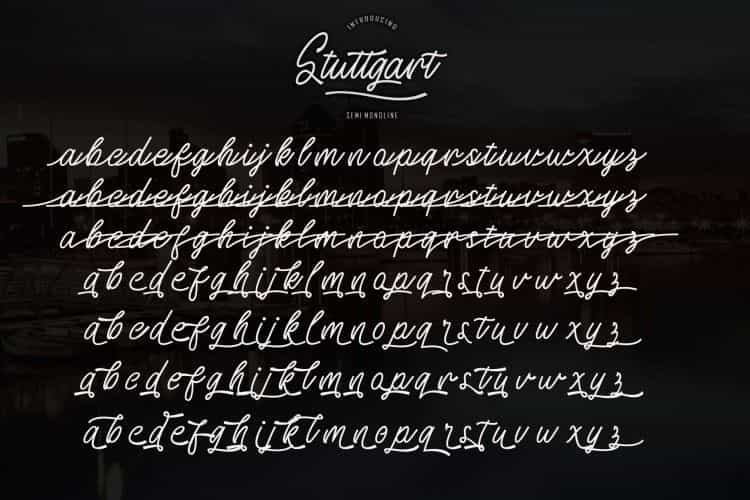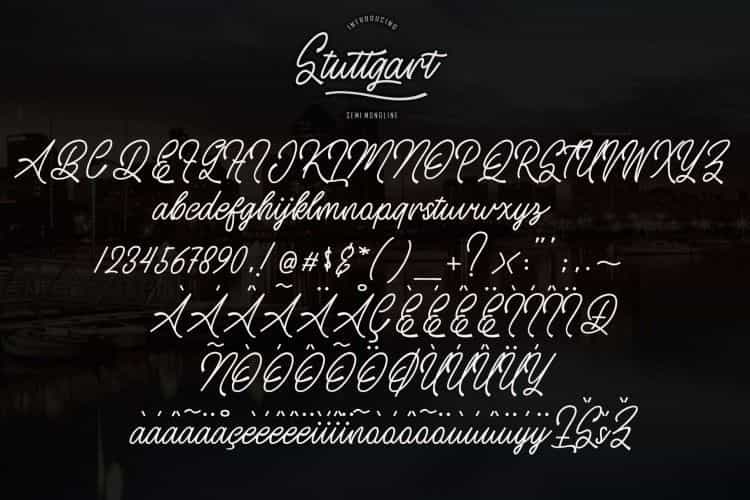
Discover Stuttgart Handwritten Font, part of the Calligraphy Handwritten collection—a versatile and unique font perfect for adding a personal touch to your projects. Download it for free and enjoy crafting designs with style, from invitations to social media posts. This font is available exclusively for personal use, giving you the freedom to create without limits. Unlock your creativity with Stuttgart Handwritten Font today!
This is a present-day calligraphy font that looks just like the current handwriting style. Stuttgart Semi-mono has a monoline size that is thick-tailed to adjust your needs, looks beautiful and attractive in the creation of branding projects, logos, wedding designs, social media posts, advertisements. Product packaging design labels and photography watermarks invitations stationery etc are all part of it.